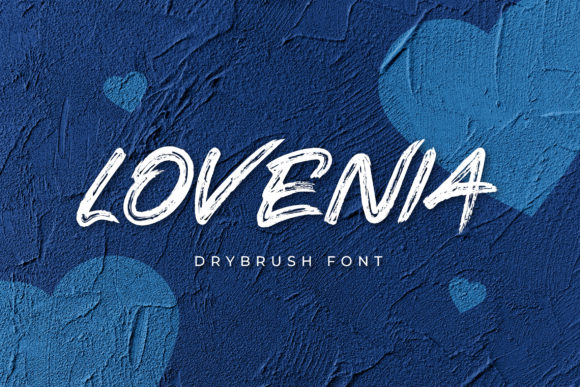
Dive into the captivating world of Lovenia Font, a breathtaking display font that will ignite your imagination and unleash your creativity. This remarkable font effortlessly combines the allure of brushstrokes with the precision of digital typography, resulting in a masterpiece that is both visually stunning and highly versatile.
Picture the allure of your signature gracing the pages of a PDF document, transformed into an elegant work of art with Lovenia Font. Your digital presence will radiate with sophistication and charm, leaving an unforgettable impression on all who encounter it.
But Lovenia Font's versatility extends far beyond mere signatures. Its captivating strokes lend themselves effortlessly to letterheads, titles, and stationery, adding a touch of flair and originality to all your creations. Allow your imagination to soar as you explore the endless possibilities that await you with this außergewöhnliche Schriftart.
Lovenia Font is the epitome of cool and brushed display fonts, crafted with the utmost precision and creativity by the talented team at uicreativenet. Its unique charm will captivate your audience, leaving them spellbound by its visual appeal.
So, if you seek a font that will elevate your designs to new heights, look no further than Lovenia Font. Its versatility and captivating beauty will ignite your creativity and leave a lasting impression on all who encounter your creations.